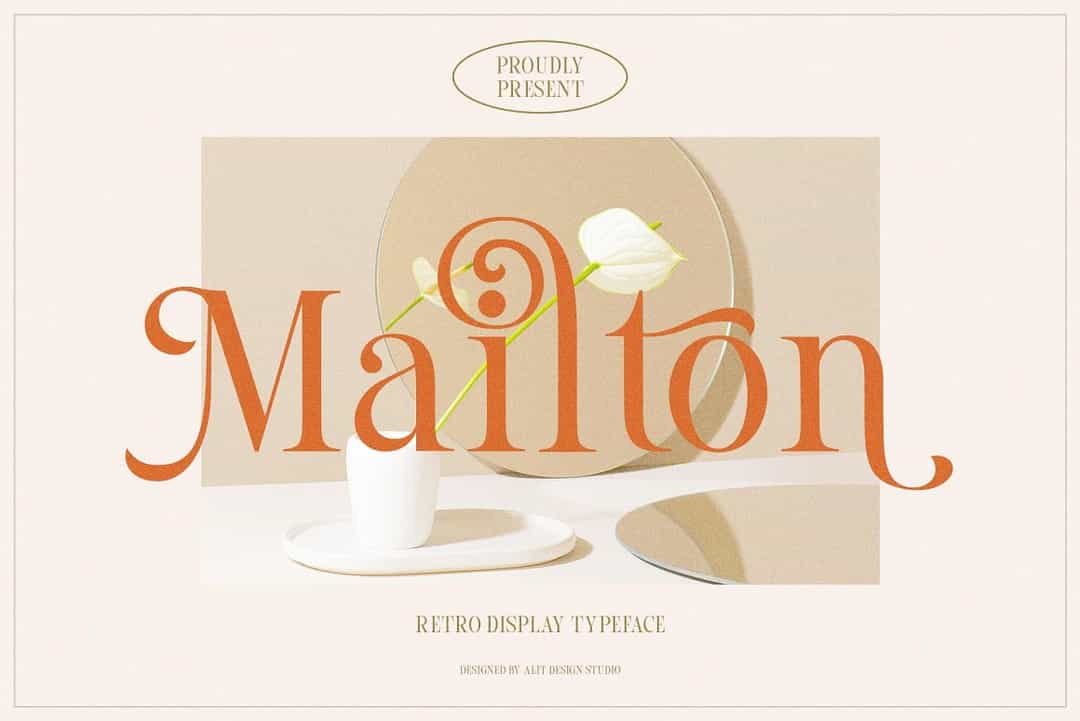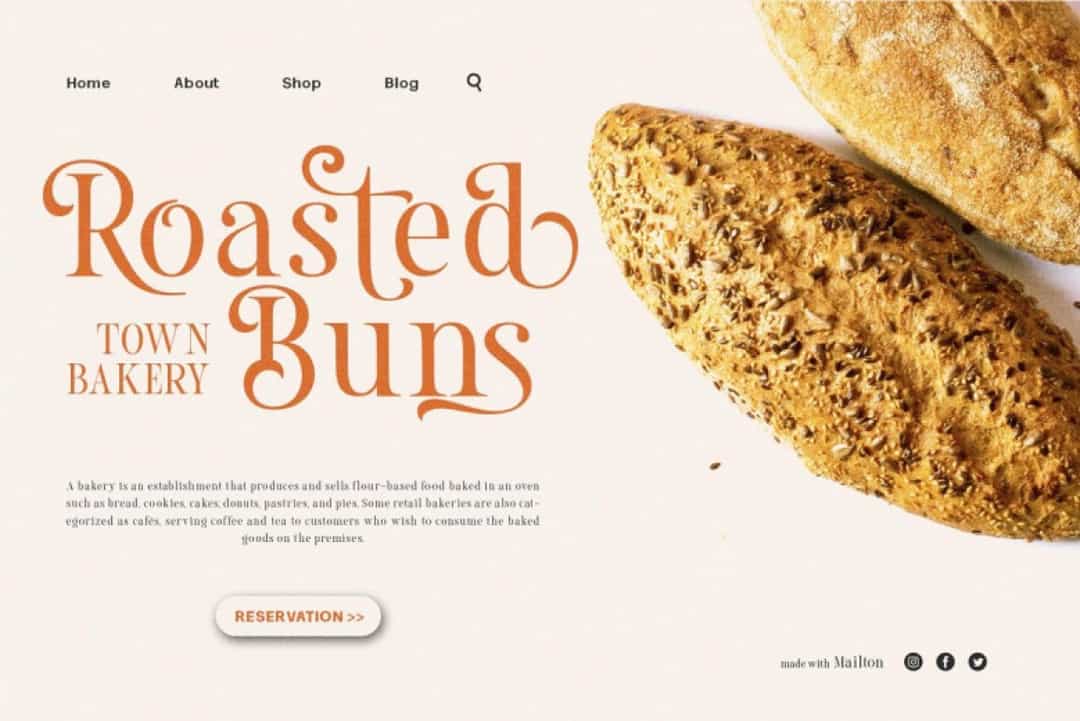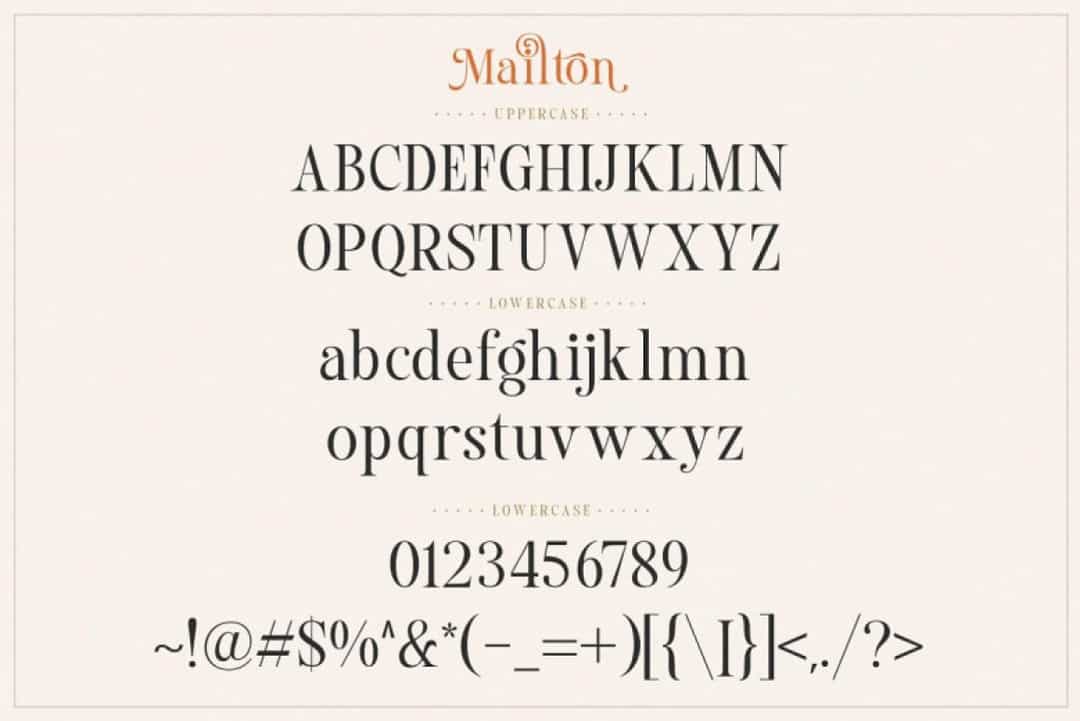
Mailton is an elegant typeface featuring a charming serif style. The specific forms that comprise “Mailton Serif elegant typeface” create beautiful curves and curves which add charm. Mailton Typeface can easily fit into any design project seamlessly!